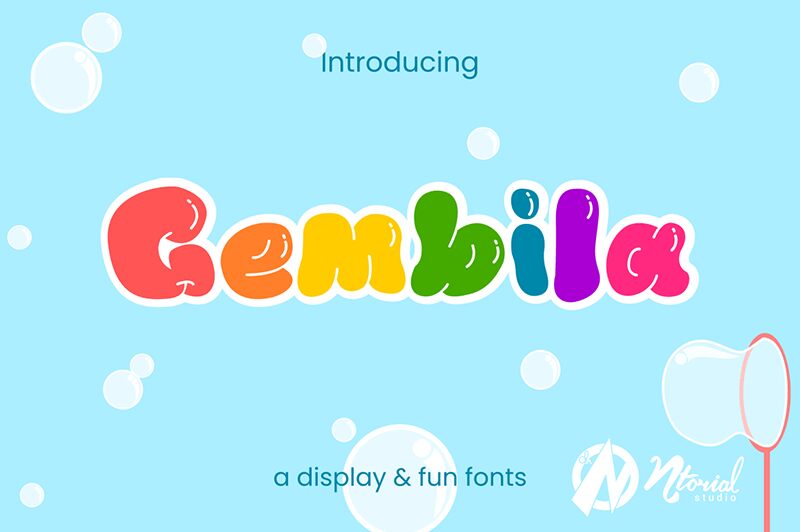
Gembila
Gembila font is another of Ntorial Studio’s amazing bold groovy typefaces! A display font that synthesizes all the elements of retro typography, Gembila features a soft, playful, and whimsical character. The rounded full-bodied letterforms easily convey the funky energetic 50s, 60s, and 70s vibes which never get old in book cover designs and a lot more.
Do you actually need anything else to be convinced that this free display font is superb? One cool feature you might not want to miss out on is its alternative characters. So download now and start creating catchy posters, logos, product packaging designs for hot drinks or food brands. Get creative with movie titles at work or greeting card designs for your personal projects!